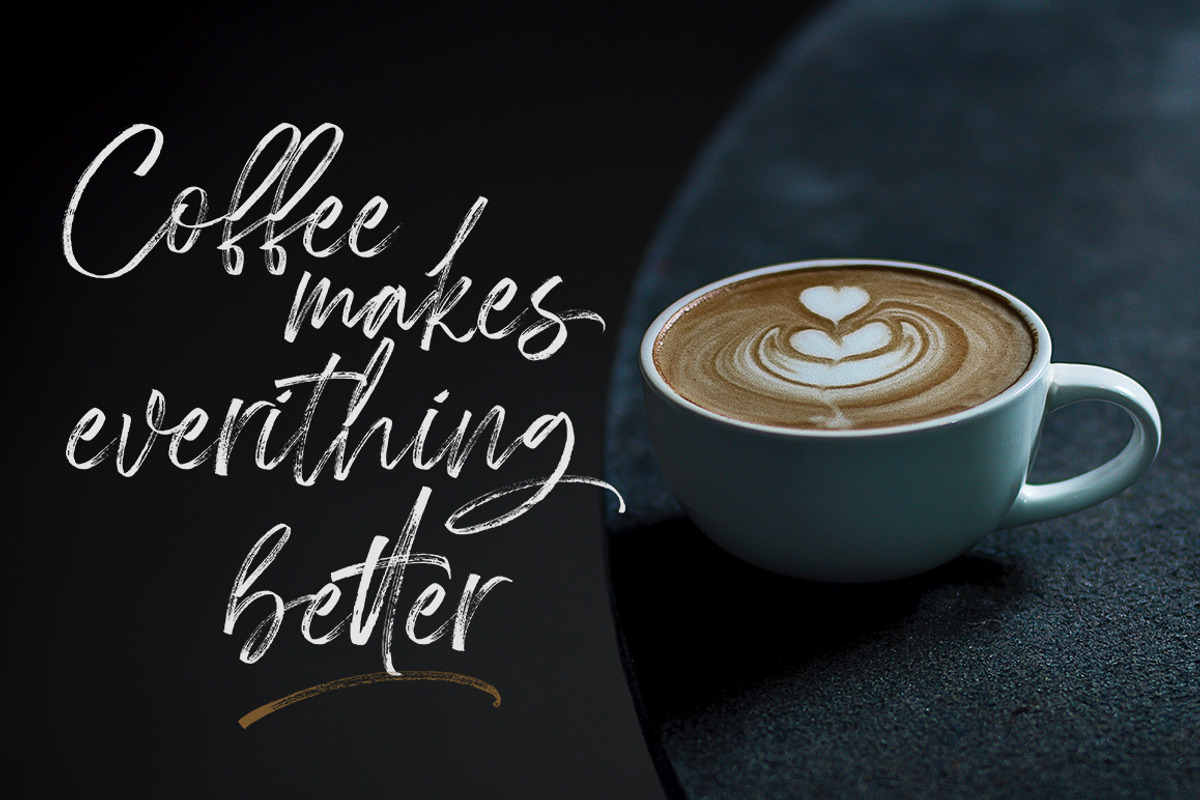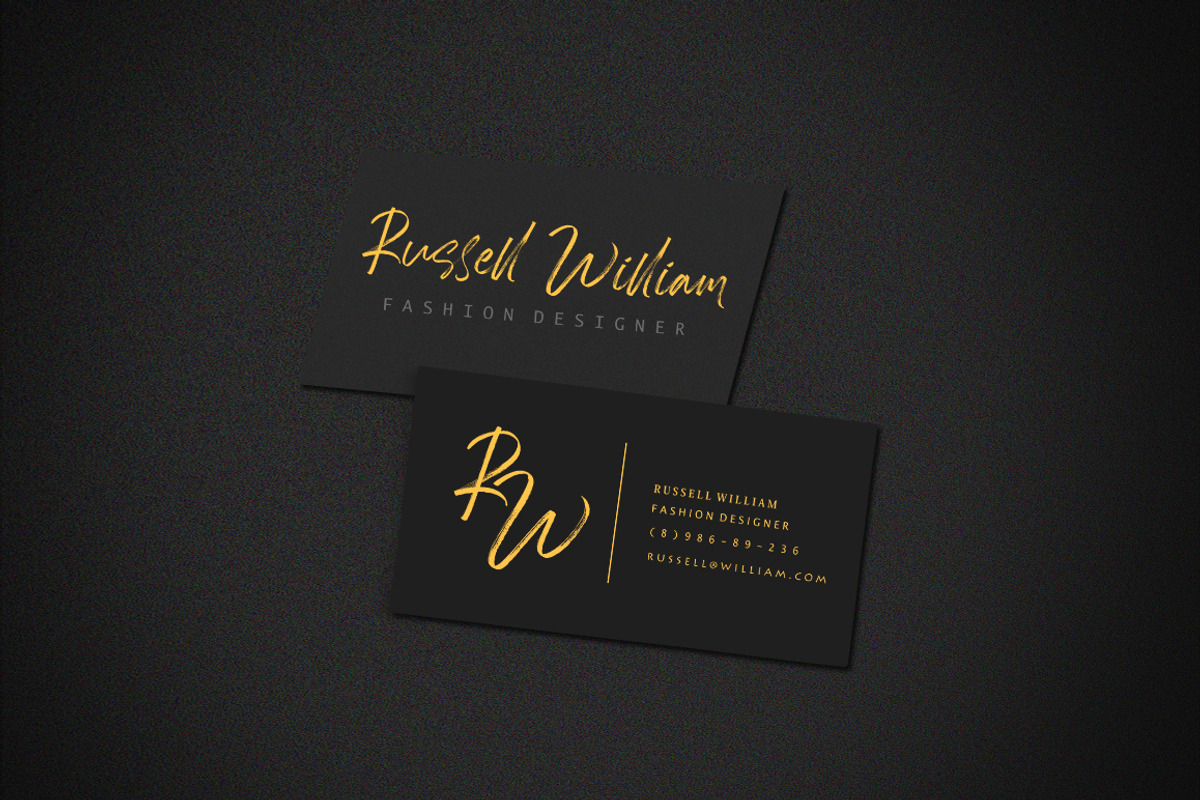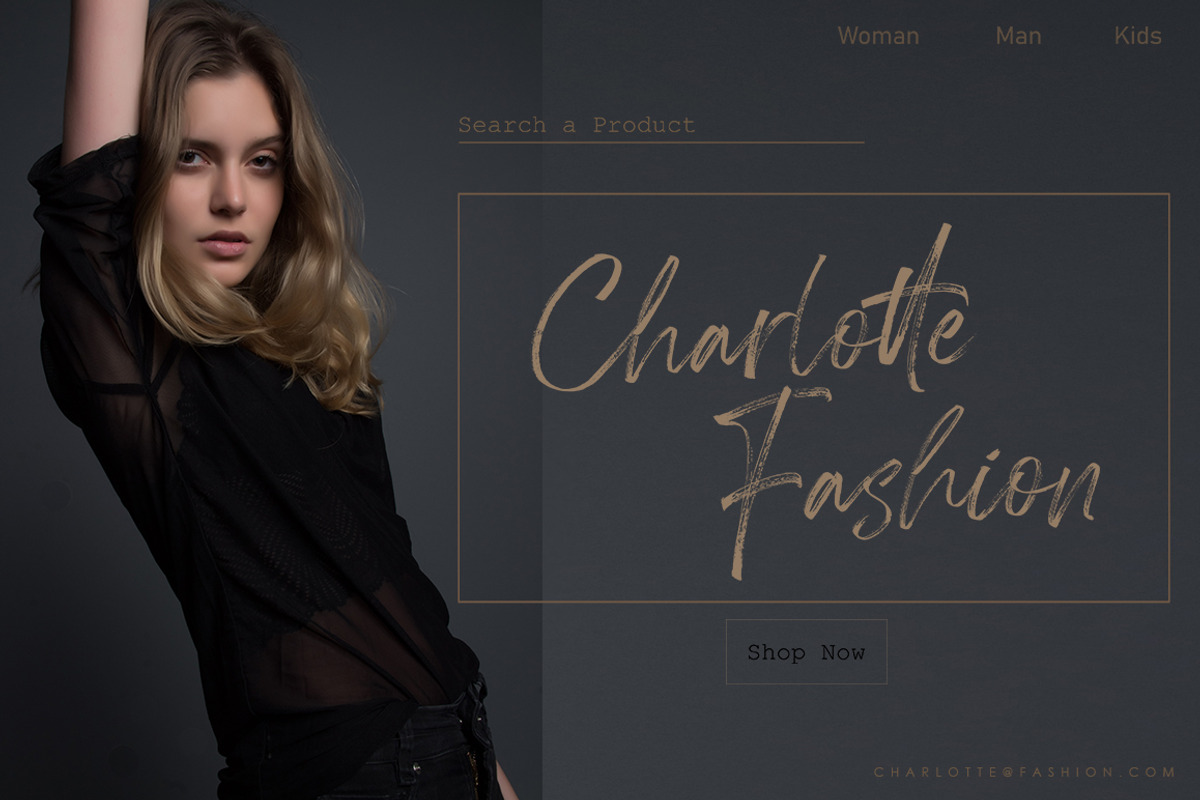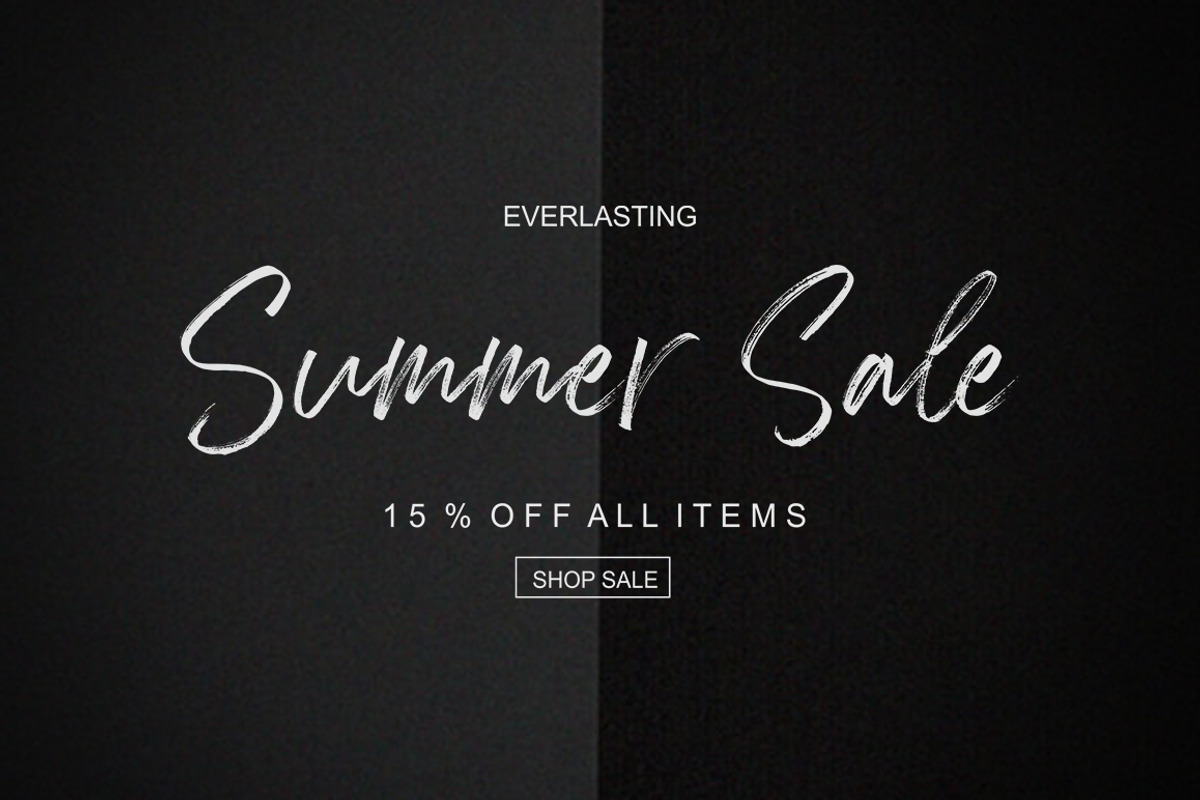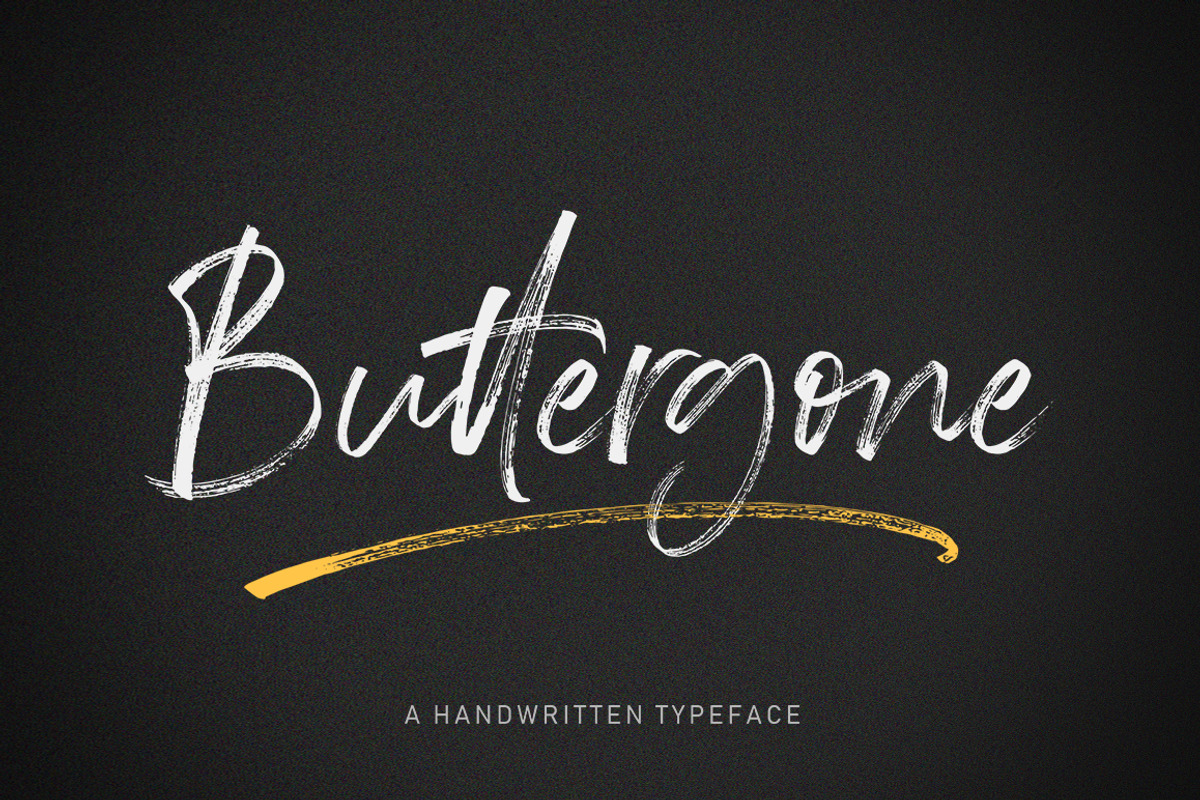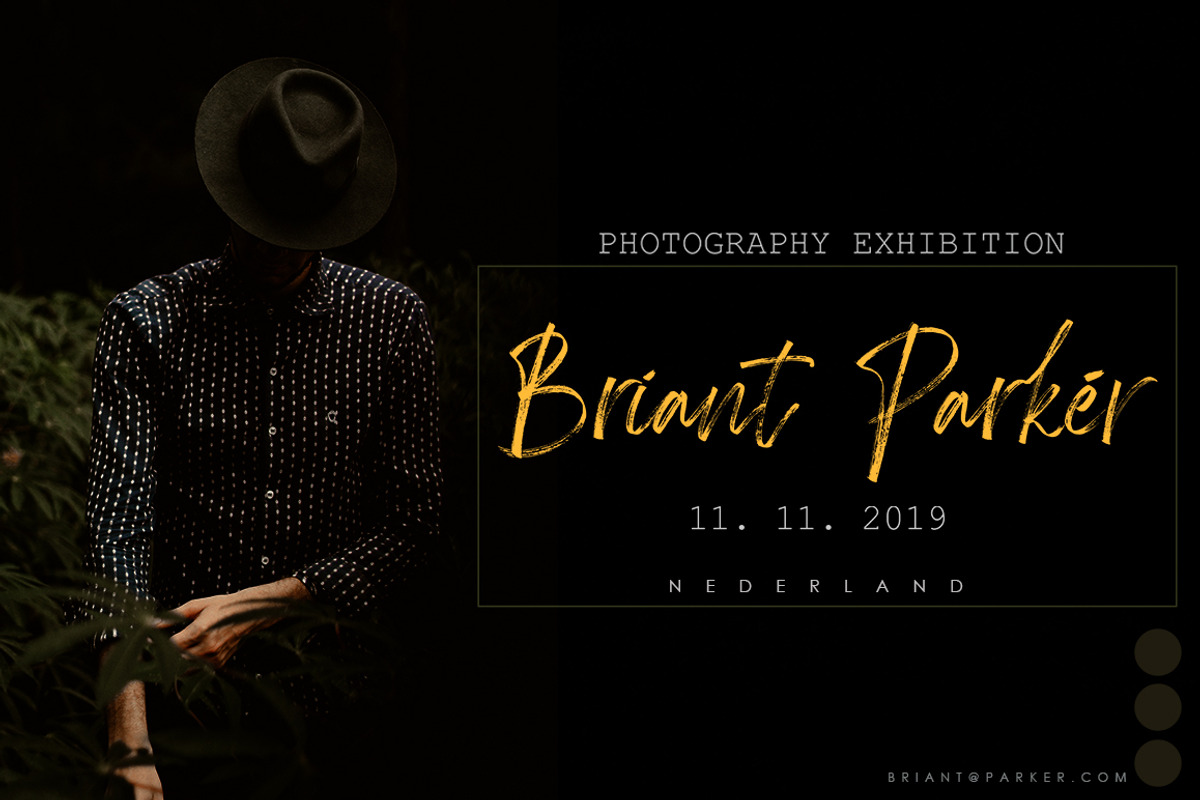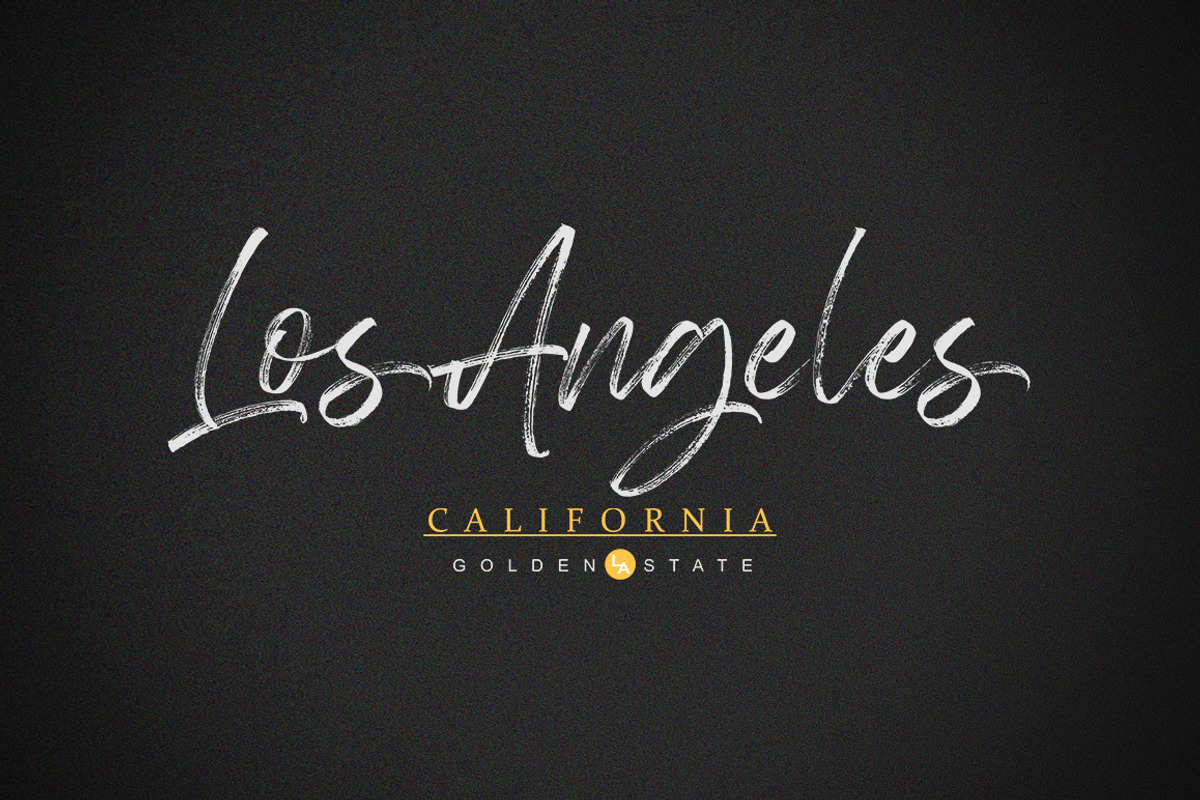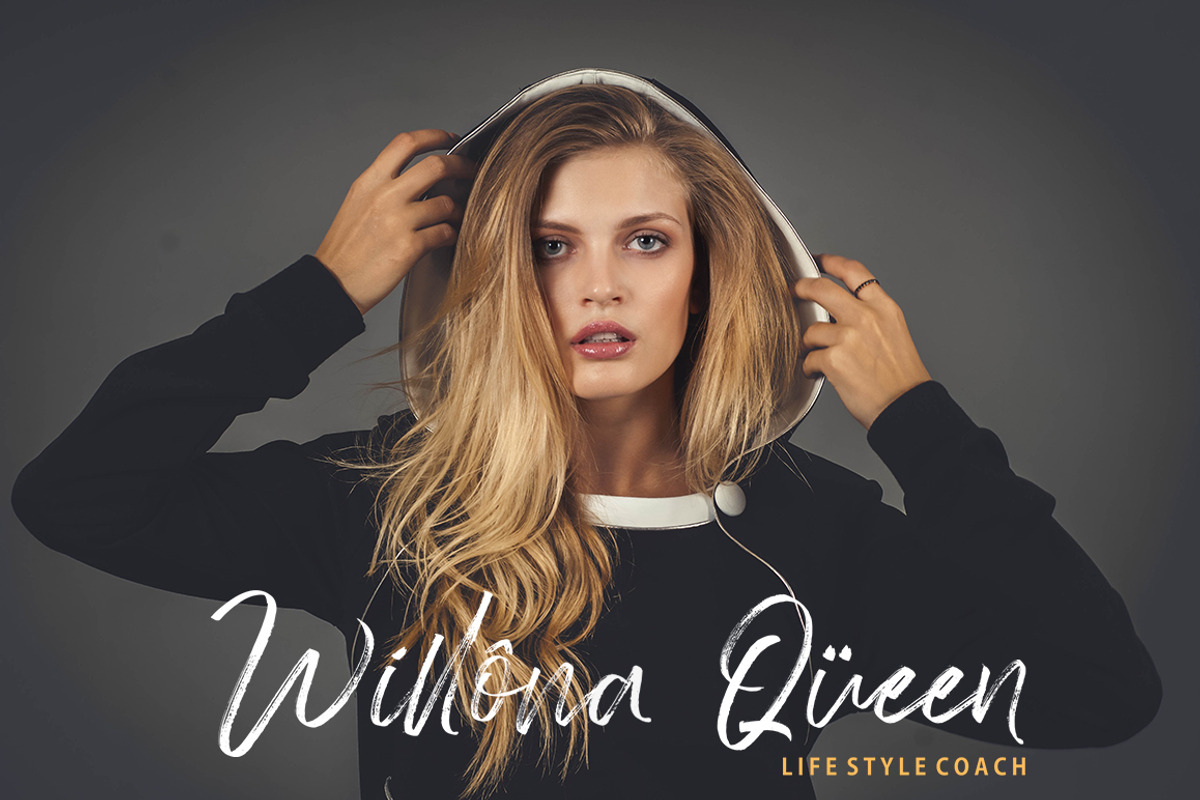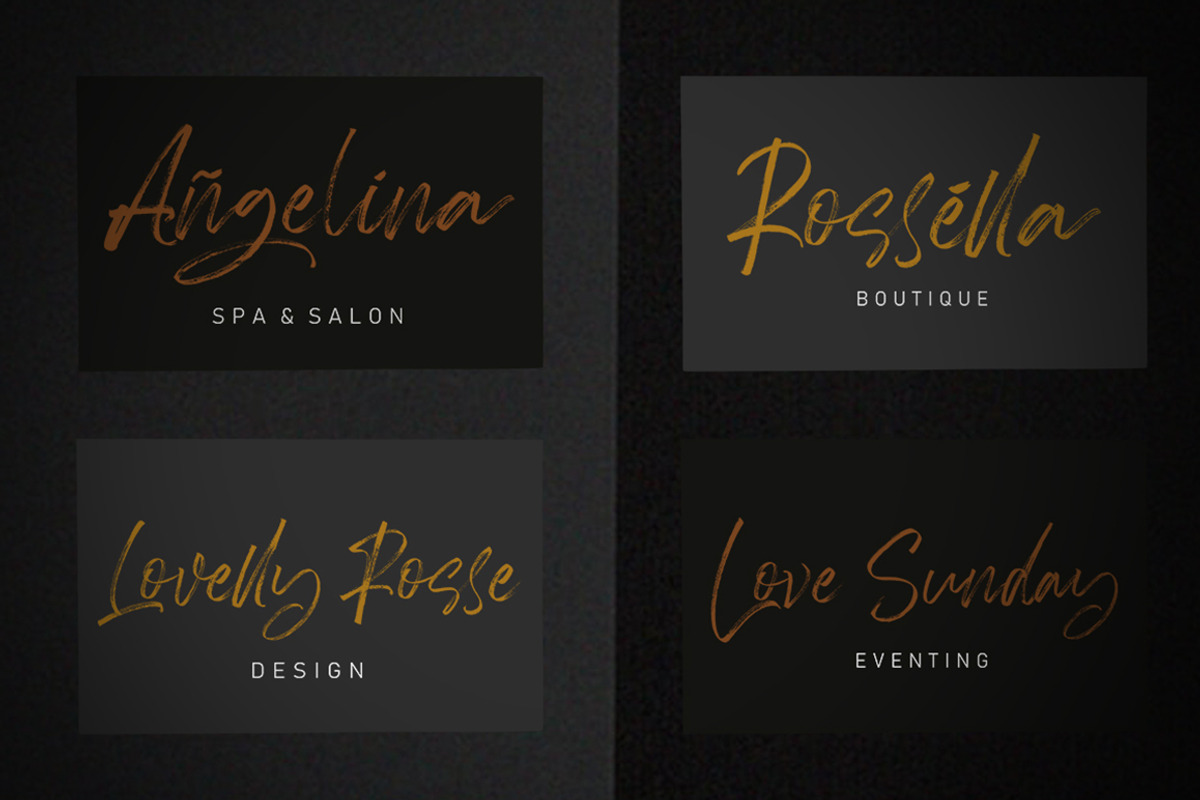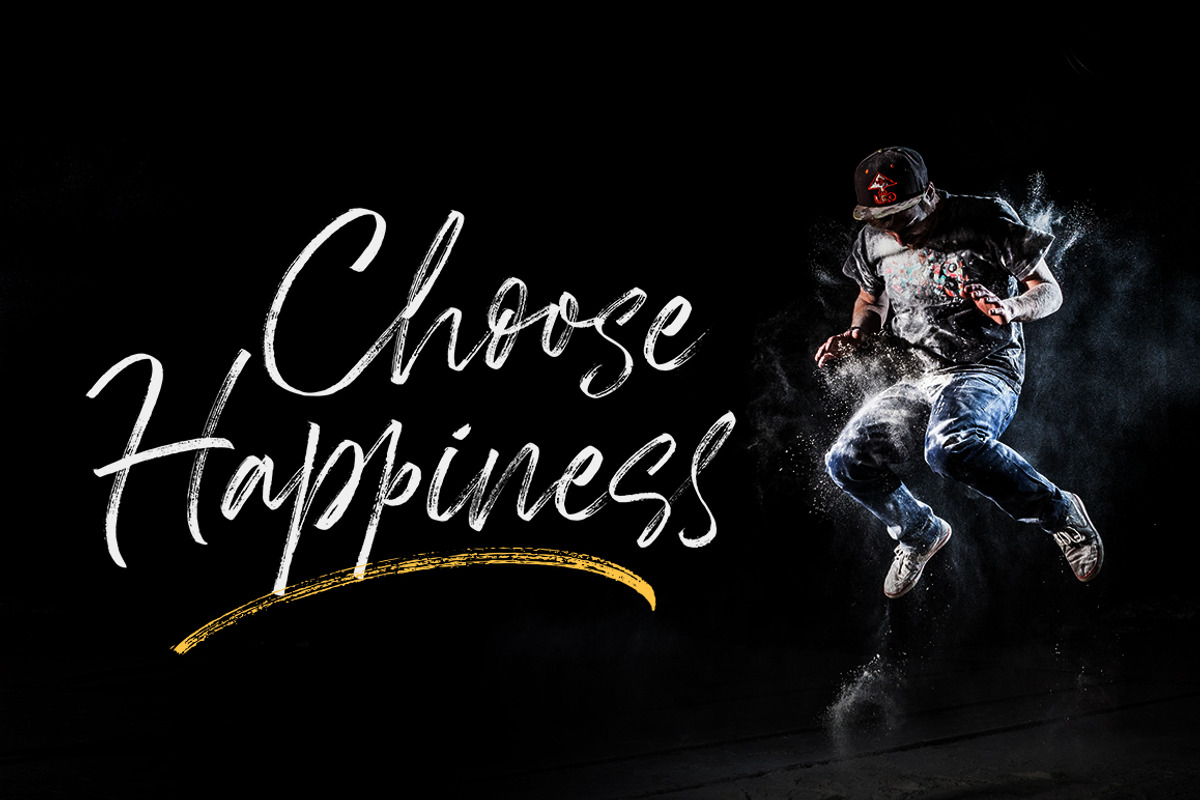
Buttergone
Buttergone is a new modern brush font with an irregular baseline. a contemporary approach to design, handmade natural, suitable for use in title design such as clothing, invitations, book titles, stationery designs, quotes, branding, logos, greeting cards, T-shirts, packaging designs, posters, and more.
Complete with uppercase and lowercase letters, as well as multi-language support, numbers, punctuation, as well as some ligatures and swash glyphs.